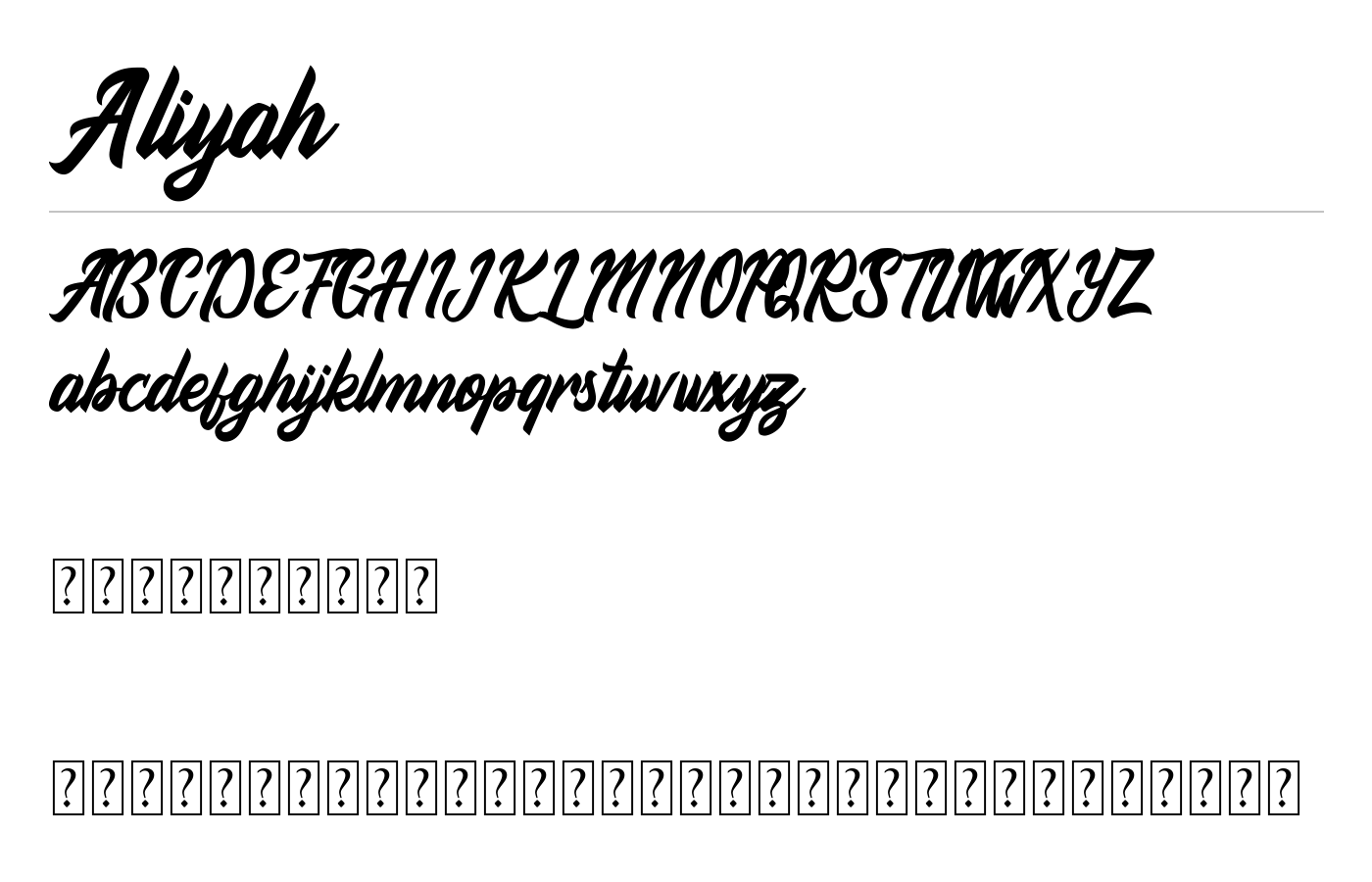
Aliyah is a bold, cursive script font with smooth, flowing letterforms that evoke a sense of elegance and warmth. Its medium x-height and consistent stroke weight make it both stylish and readable, perfect for branding, invitations, and headlines that want to convey a friendly yet sophisticated personality. This font works especially well in creative and personalized designs where a modern, handcrafted feel is desired.
Aliyah Font
About Aliyah Font
| Font family | Aliyah Font |
| Designer | SaberStudio |